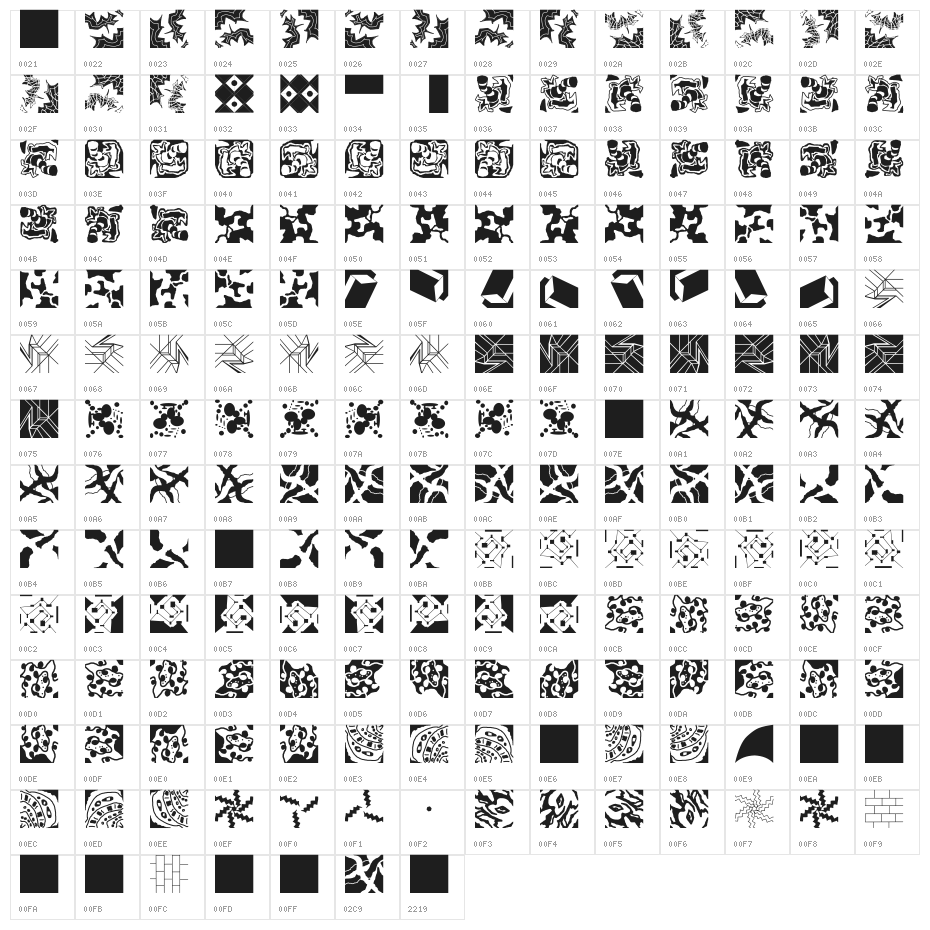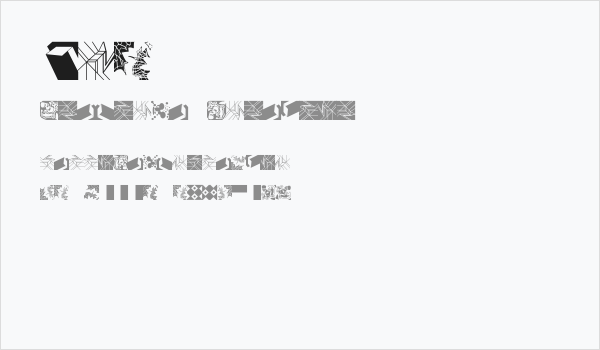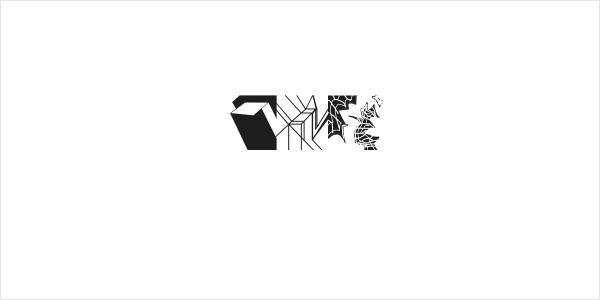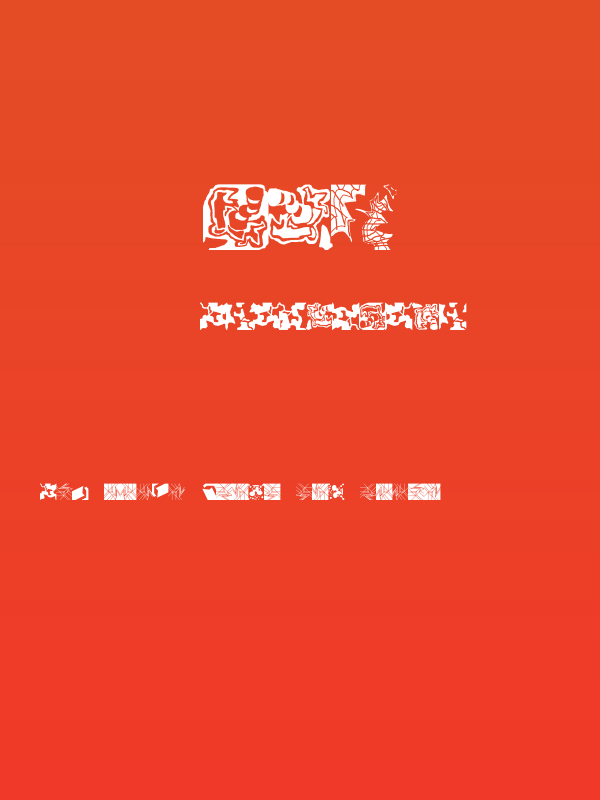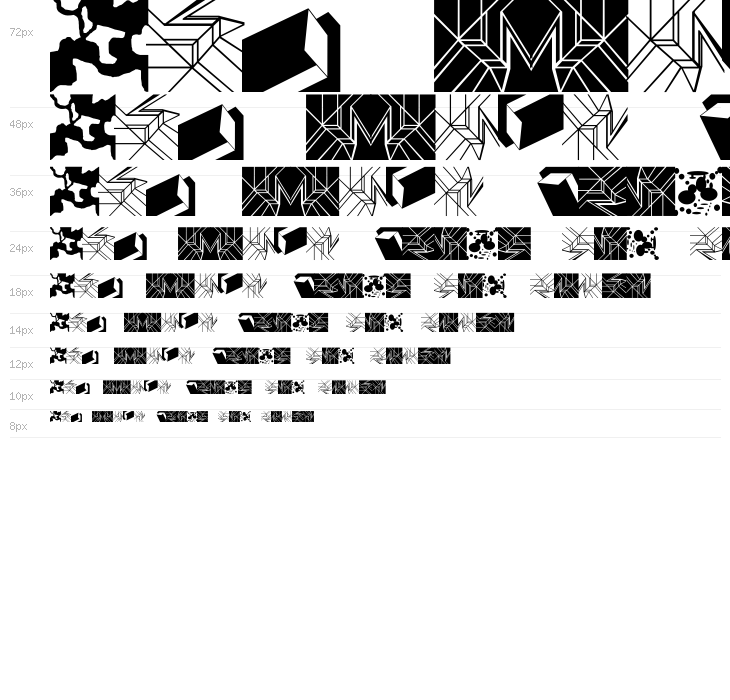
bk1 Font
bk1 Description
This font features an intricate and abstract design, characterized by complex patterns and shapes that form each letter and symbol. The style is highly decorative, with each character appearing as a unique piece of art. The letters are filled with bold, black shapes and negative spaces that create a striking visual effect. This font is not designed for readability but rather for artistic expression, making it suitable for projects that require a strong visual impact. The characters are tightly spaced, and the overall look is chaotic yet structured, with a modern and avant-garde feel.
Overall StyleModern, Avant-garde
Use CaseLogos, Posters, Artistic projects
Proposed ProjectsIdeal for artistic projects, album covers, posters, and any design work that benefits from a bold, abstract aesthetic.